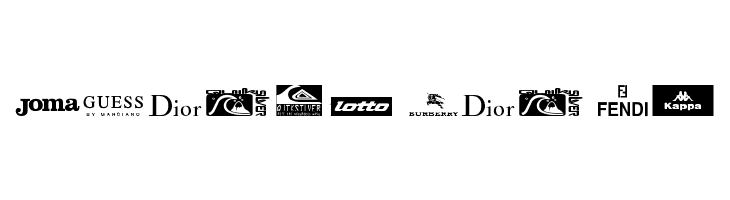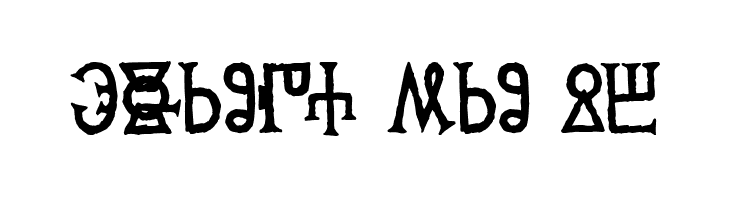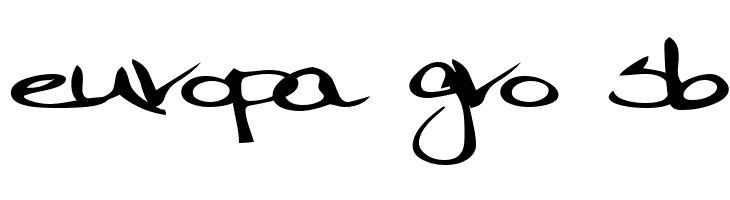
A compilation of logotype fonts used in well-known clothing and sportswear brand logos.
A distressed, hand-drawn font with a vintage, rustic appeal.
A diverse set of iconic brand logos in their original typographic treatments.
An abstract, decorative design with crescent and circular shapes, resembling a secret code.
A decorative font inspired by the ancient Glagolitic script, featuring bold and intricate letterforms.
A bold, expressive handwritten font with fluid, interconnected strokes.
A vintage, calligraphic font with a textured, ancient manuscript style.
A collection of intricate and elegant ornamental designs with vintage flair.